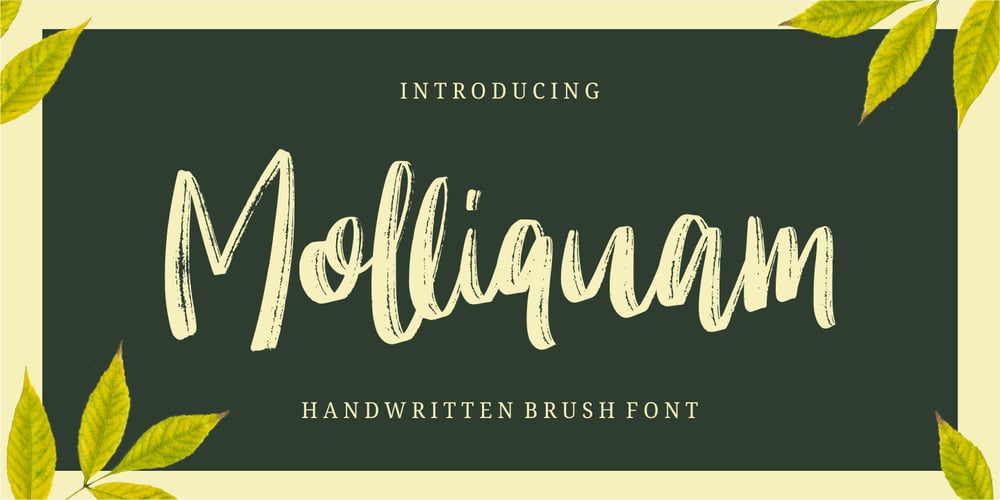
Molliquam Font Family was designed by Risman Ginarwan and published by Garisman Studio. Molliquam contains 1 styles and family package options. Molliquam font starts from a brush stroke with a script style and also follows the times. Molliquam is very suitable for use in various media such as; packaging, logos, labels, posters, shirt design, quote of wisdom, hand-lettering, typography and many other media. – Ligature – Natural brush touch – PUA Encoded open – Support for MAC or PC – Simple installation for Adobe Illustrator, Corel Draw, Photoshop, or other software design Thanks Garisman Studio